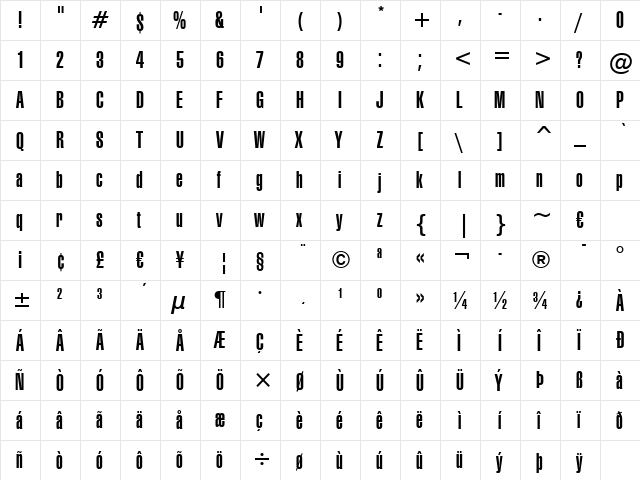
font224 Regular Font Preview
font224 Regular
font224 Regular Font Details
Design Context for font224 Typeface
font224 is a composed and adaptable typeface that performs quietly and consistently across a wide range of design contexts.